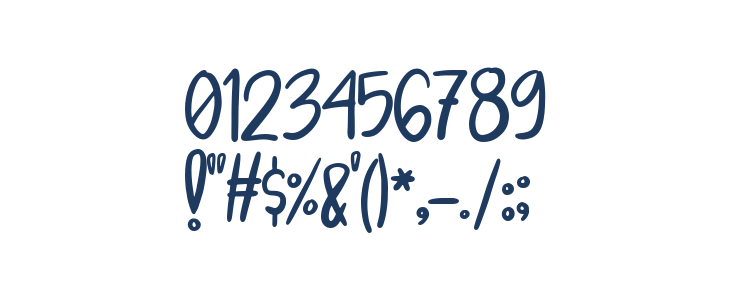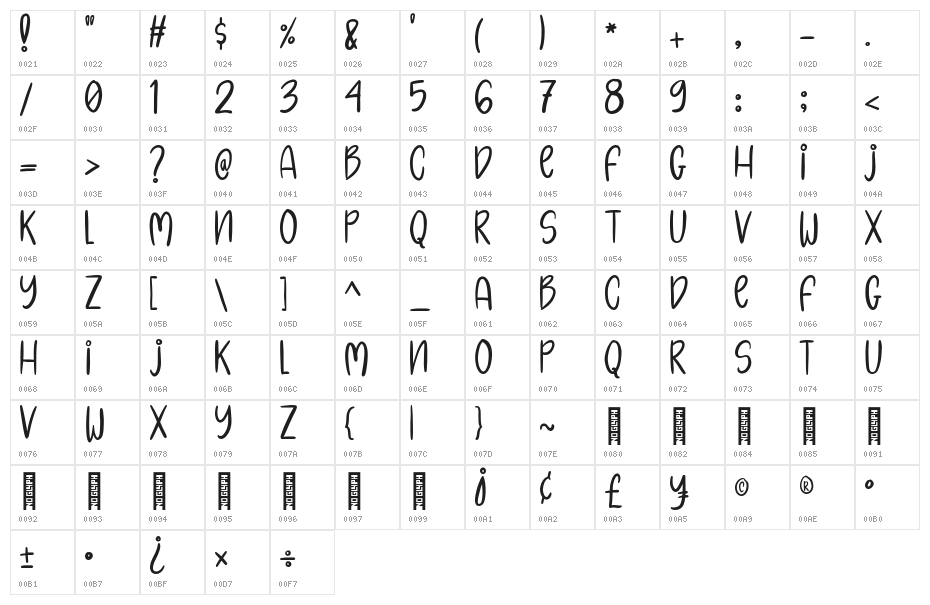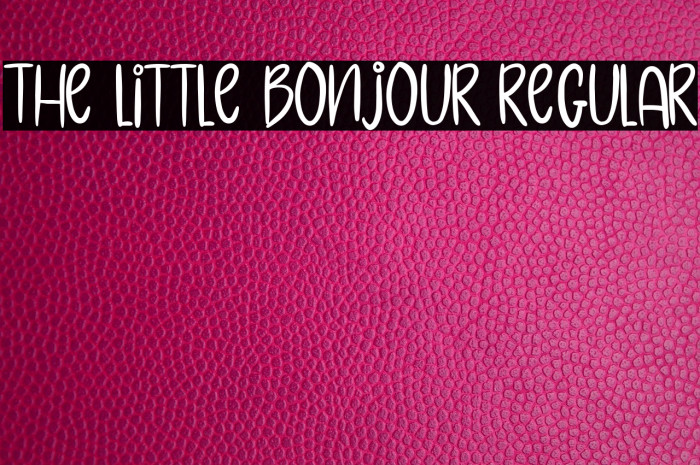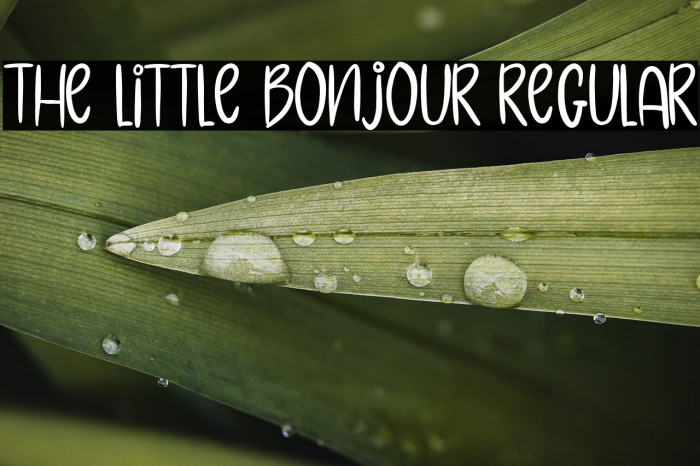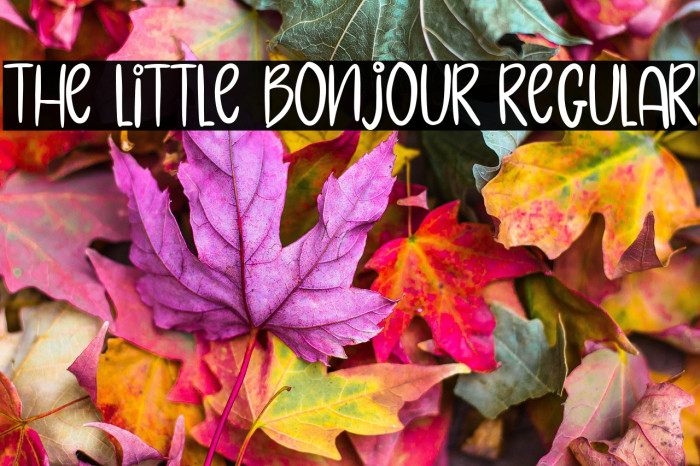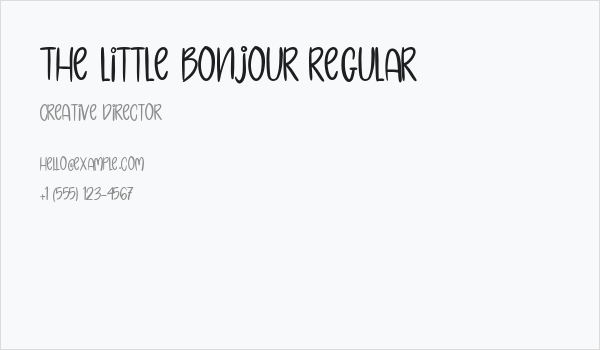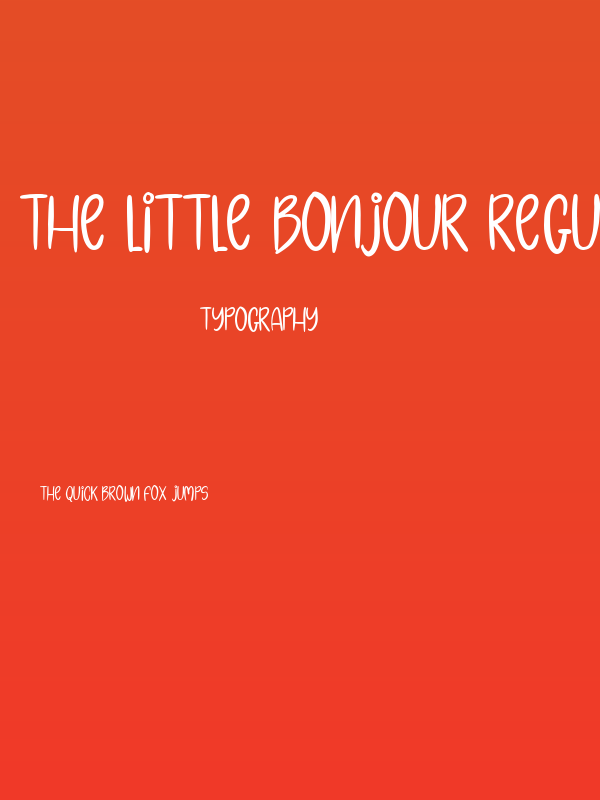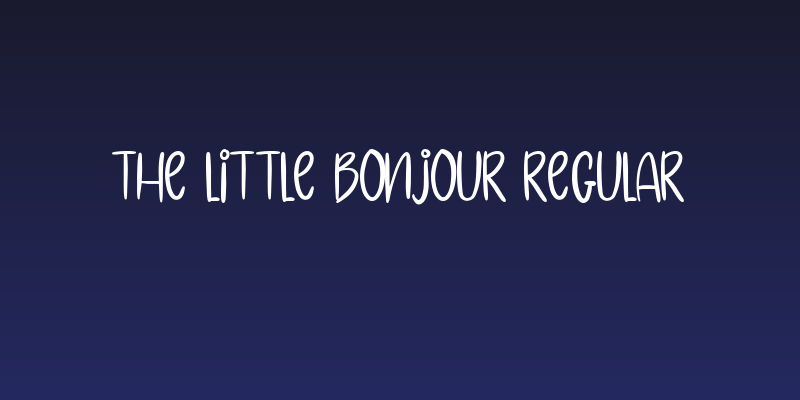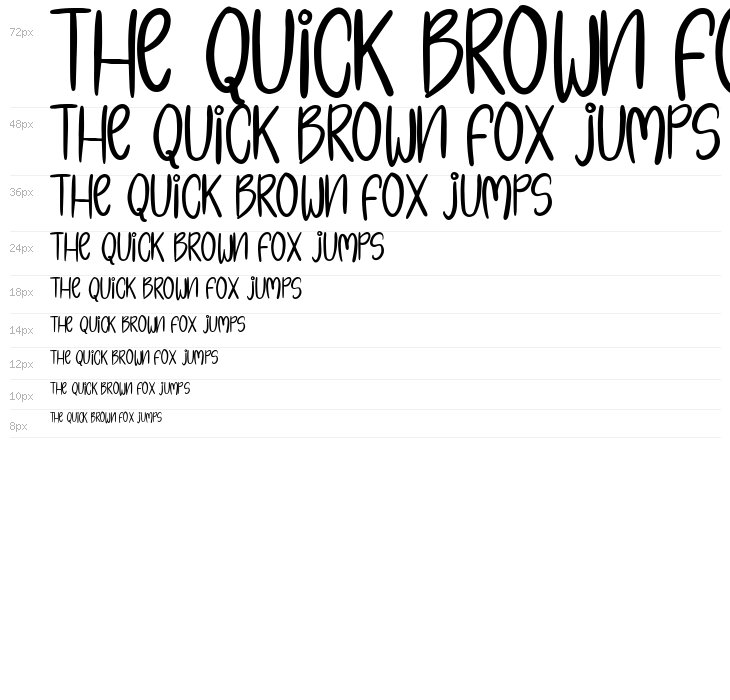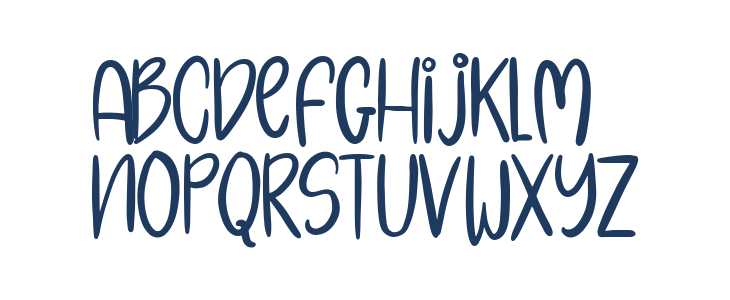
The Little Bonjour Regular Font
The Little Bonjour Regular Description
This playful and whimsical font features a handwritten style with smooth, rounded edges and a casual, friendly appearance. The characters are slightly elongated, giving them a unique and artistic flair. The uppercase and lowercase letters maintain a consistent flow, while the numerals and special characters complement the overall design. This font exudes a sense of creativity and spontaneity, making it ideal for projects that require a personal touch.
| Overall Style | Playful and Whimsical |
| Use Case | Logos, Invitations, Social Media Graphics |
| Proposed Projects | Ideal for greeting cards, children's books, playful branding, and creative social media graphics. |